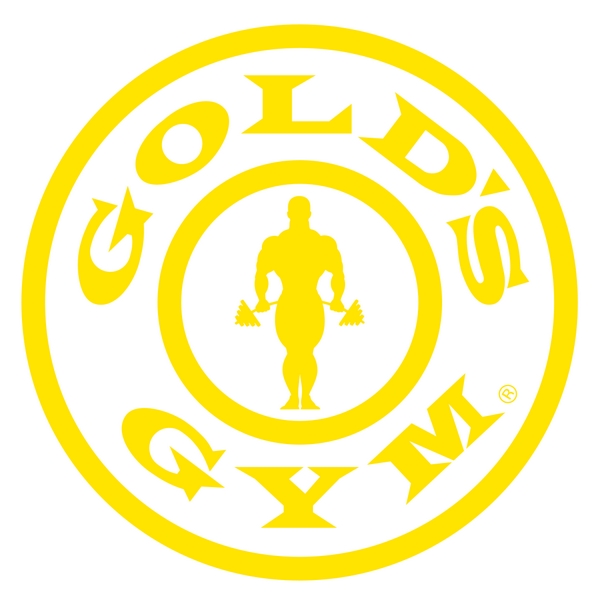
Gold’s Gym Font
Fonts in UseGold’s Gym is a global chain of fitness centers that offer a range of exercise equipment, group classes, personal training, and other services. It was founded in 1965 in Venice Beach, California, and has since expanded to over 700 locations in 28 countries.
The logo's font is likely to be Latin Wide, which is published by CastleType. This font has large, sharp, and triangular serifs and is available in six widths from Extra Condensed to Wide. Further details about the font can be found here.